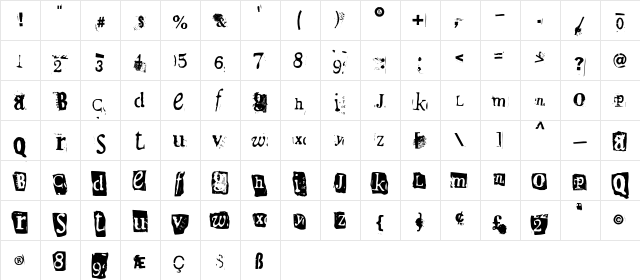
Bighouse Regular
Design Context for Bighouse Typeface
Bighouse is a composed and adaptable typeface that performs quietly and consistently across a wide range of design contexts.